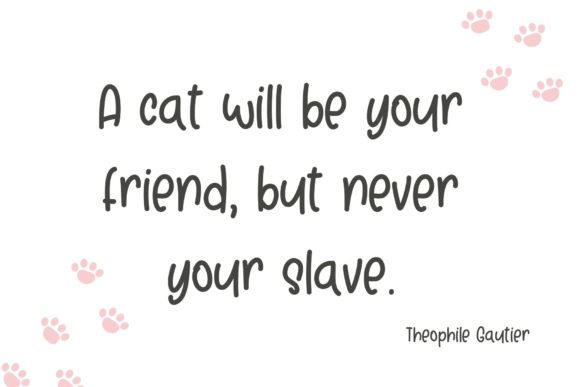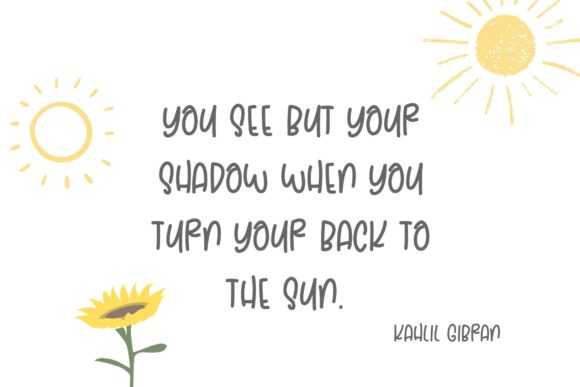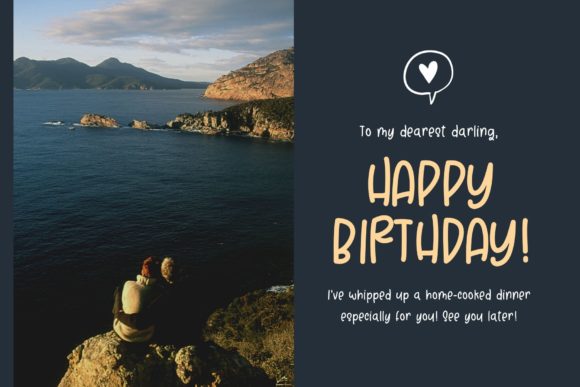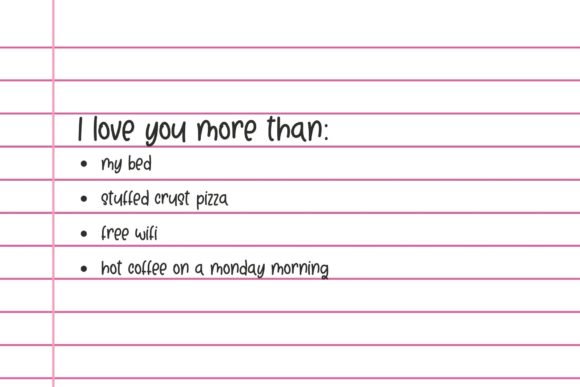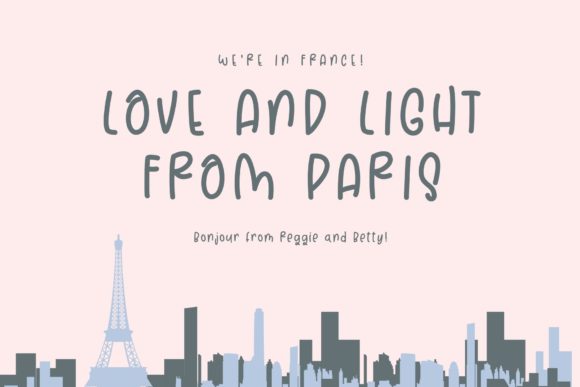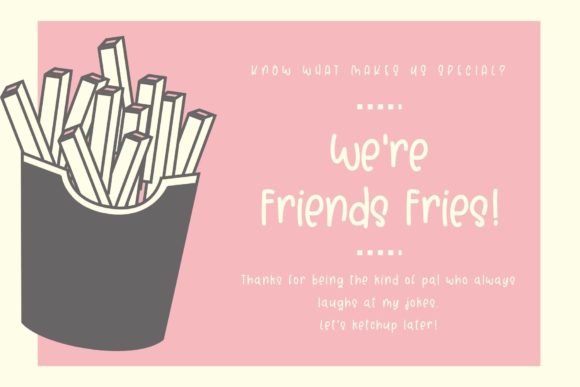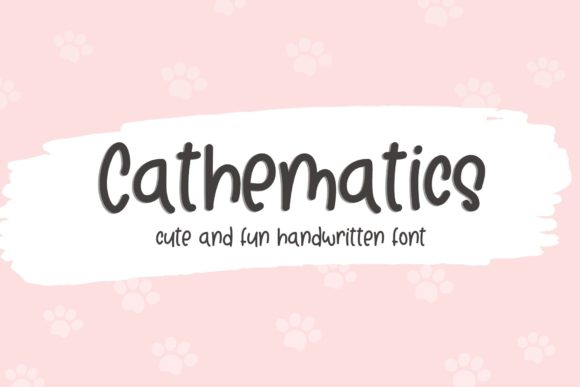
Introducing Cathematics Font: The Quirky and Cute Handwritten Font You Need
Are you tired of using the same old fonts in your designs? Look no further! Cathematics Font is here to shake things up with its unique blend of cuteness and quirkiness. This handwritten font is incredibly versatile and can turn any creative idea into a standout piece that grabs attention. In this article, we’ll dive into the world of Cathematics Font and explore its features, benefits, and uses.
What is Cathematics Font?
Cathematics Font is a beautiful, handwritten font that’s perfect for designers and crafters looking for a fresh and exciting way to express themselves. With its playful and whimsical feel, this font is sure to add a touch of personality to any project. Whether you’re working on a logo, branding materials, social media graphics, or craft projects, Cathematics Font is the perfect choice.
Key Features of Cathematics Font
- Cute and Quirky: Cathematics Font has a unique and playful feel that’s sure to capture the attention of your audience.
- Incredibly Versatile: This font can be used in a wide range of projects, from logos and branding materials to social media graphics and craft projects.
- Handwritten: With its handwritten feel, Cathematics Font adds a personal touch to any project.
- Easy to Read: Despite its quirky feel, Cathematics Font is incredibly easy to read, making it perfect for body text and headings.
Benefits of Using Cathematics Font
So, why choose Cathematics Font for your next project? Here are just a few benefits of using this amazing font:
- Adds Personality: Cathematics Font adds a touch of personality to any project, helping you to stand out from the crowd.
- Perfect for Branding: With its unique feel, Cathematics Font is perfect for branding materials, helping you to create a memorable and recognizable brand.
- Great for Social Media: This font is perfect for social media graphics, helping you to create eye-catching and engaging content.
- Easy to Use: Cathematics Font is incredibly easy to use, making it perfect for designers and crafters of all skill levels.
Uses for Cathematics Font
So, what can you use Cathematics Font for? The possibilities are endless! Here are a few ideas to get you started:
- Logos and Branding Materials: Use Cathematics Font to create a unique and memorable logo or branding materials.
- Social Media Graphics: Create eye-catching social media graphics that grab attention and drive engagement.
- Craft Projects: Add a personal touch to your craft projects, such as handmade cards, gift tags, and more.
- Invitations and Stationery: Use Cathematics Font to create beautiful and unique invitations and stationery.
Tips for Using Cathematics Font
Here are a few tips for getting the most out of Cathematics Font:
- Experiment with Colors: Try pairing Cathematics Font with different colors to create a unique and eye-catching look.
- Play with Sizes: Experiment with different font sizes to create visual interest and hierarchy.
- Add Graphics: Consider adding graphics or illustrations to your text to create a more visually appealing design.
In conclusion, Cathematics Font is a unique and versatile font that’s perfect for designers and crafters looking to add a touch of personality to their projects. With its cute and quirky feel, this font is sure to capture the attention of your audience and help you to stand out from the crowd. Whether you’re working on a logo, branding materials, social media graphics, or craft projects, Cathematics Font is the perfect choice. So why wait? Give Cathematics Font a try today and see the difference it can make!